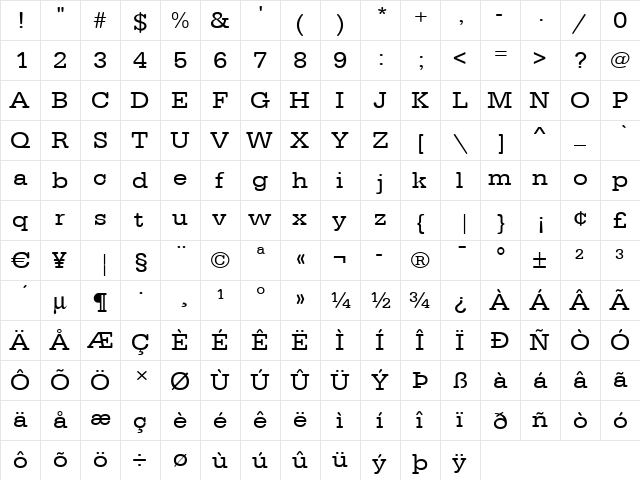
AstridBeckerExtended Regular Font Preview
AstridBeckerExtended Regular
Design Context for AstridBeckerExtended Typeface
AstridBeckerExtended takes a measured approach to typography — its balanced proportions and neutral character make it a reliable workhorse for both digital and print work.